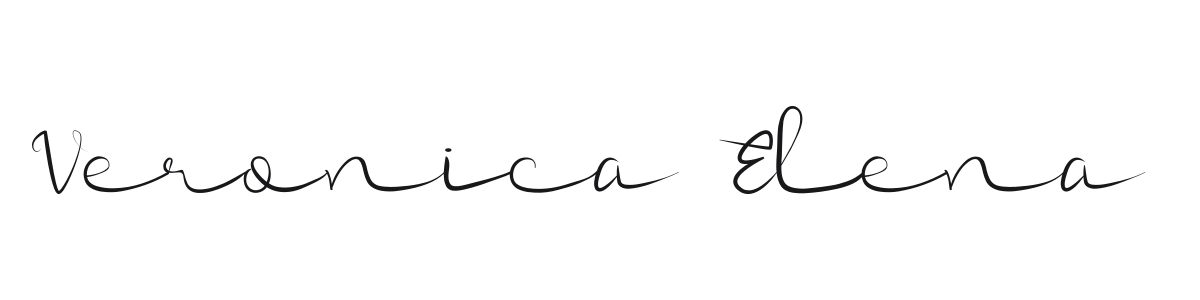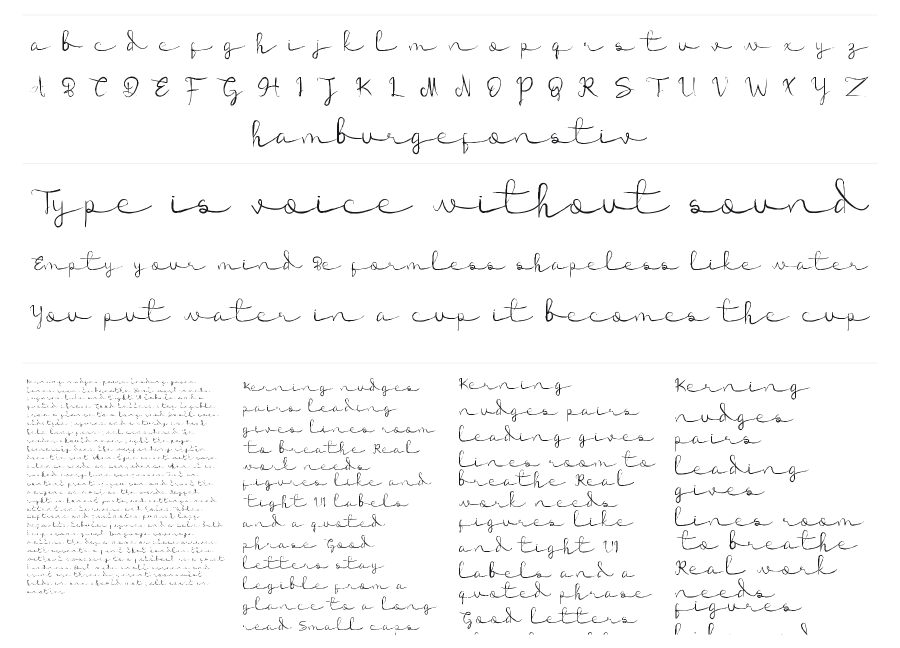
Veronica Elena
Veronica Elena is a flowing casual script from Edric Studio with thin, thread-like strokes and graceful connecting sweeps between letters. The overall weight is featherlight, giving it an airy, romantic quality that reads well at large display sizes. It suits wedding stationery, beauty branding, and any project that needs a soft, handwritten touch.